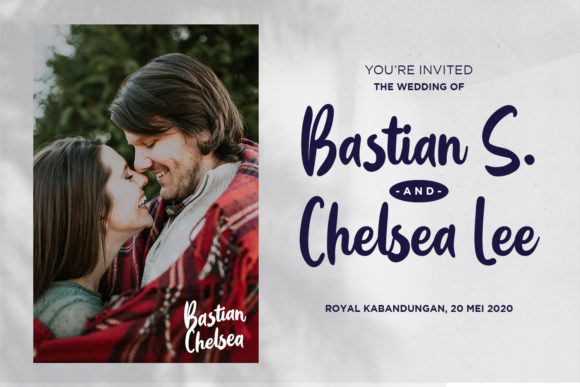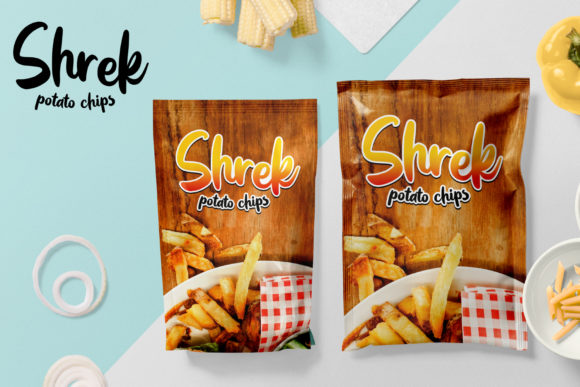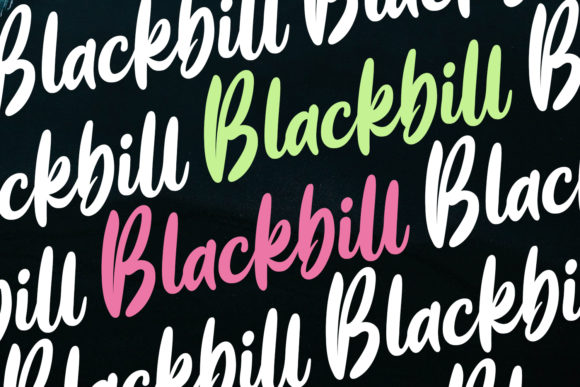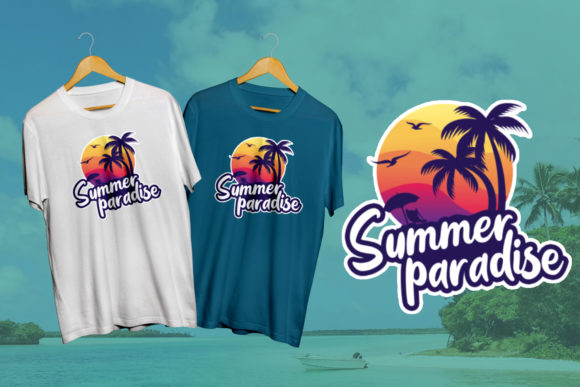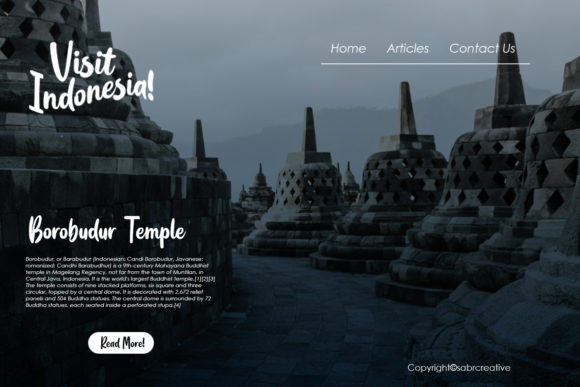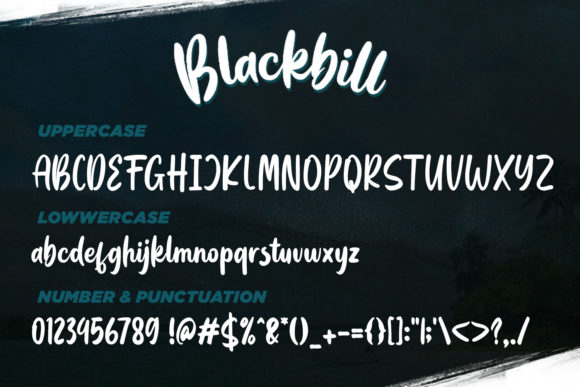
Introducing Blackbill Font: Elevate Your DIY Projects with a Modern Twist
Are you a designer, crafter, or DIY enthusiast looking for a font that can add a touch of personality to your projects? Look no further than Blackbill Font, a modern and charming display font that’s sure to elevate your creative endeavors. With its beautifully balanced letters, Blackbill Font is the perfect choice for anyone seeking to add an authentic twist to their DIY projects.
What Makes Blackbill Font Stand Out?
Blackbill Font is a unique and stylish display font that boasts a range of characteristics that set it apart from other fonts. Here are just a few reasons why Blackbill Font is a cut above the rest:
- Modern and Charming: Blackbill Font features a modern and charming design that’s perfect for DIY projects, crafts, and creative endeavors.
- Beautifully Balanced Letters: Each letter in the Blackbill Font is carefully crafted to ensure beautiful balance and harmony, making it a joy to read and look at.
- Authentic Twist: Blackbill Font adds an authentic twist to any DIY project, giving it a unique and personalized touch that’s sure to stand out.
- Versatile: Blackbill Font is versatile and can be used for a range of projects, from crafting and DIY to graphic design and digital art.
The Benefits of Using Blackbill Font
So, what are the benefits of using Blackbill Font for your DIY projects? Here are just a few advantages of incorporating this stylish font into your creative endeavors:
- Easy to Read: Blackbill Font is easy to read, even at smaller sizes, making it perfect for projects where legibility is key.
- Highly Customizable: Blackbill Font can be customized to suit your project’s needs, from adjusting the font size and color to adding effects and textures.
- Time-Saving: With Blackbill Font, you can save time and effort by using a pre-designed font that’s ready to use, rather than creating your own from scratch.
- Professional-Looking Results: Blackbill Font is designed to produce professional-looking results, giving your DIY projects a polished and finished appearance.
- Add Your Text: Add your text to the project, using Blackbill Font to add a modern and charming touch.
Tips and Tricks for Getting the Most Out of Blackbill Font
Here are a few tips and tricks for getting the most out of Blackbill Font:
- Experiment with Different Sizes: Experiment with different font sizes to find the perfect balance for your project.
- Play with Color: Play with different colors and textures to add depth and interest to your project.
- Combine with Other Fonts: Combine Blackbill Font with other fonts to create a unique and visually appealing effect.
- Use in Combination with Images: Use Blackbill Font in combination with images to add a touch of personality to your project.
In conclusion, Blackbill Font is a modern and charming display font that’s perfect for DIY projects, crafts, and creative endeavors. With its beautifully balanced letters and authentic twist, Blackbill Font is sure to elevate your creative projects and give them a polished and finished appearance. So why wait? Download Blackbill Font today and start adding a touch of personality to your DIY projects!